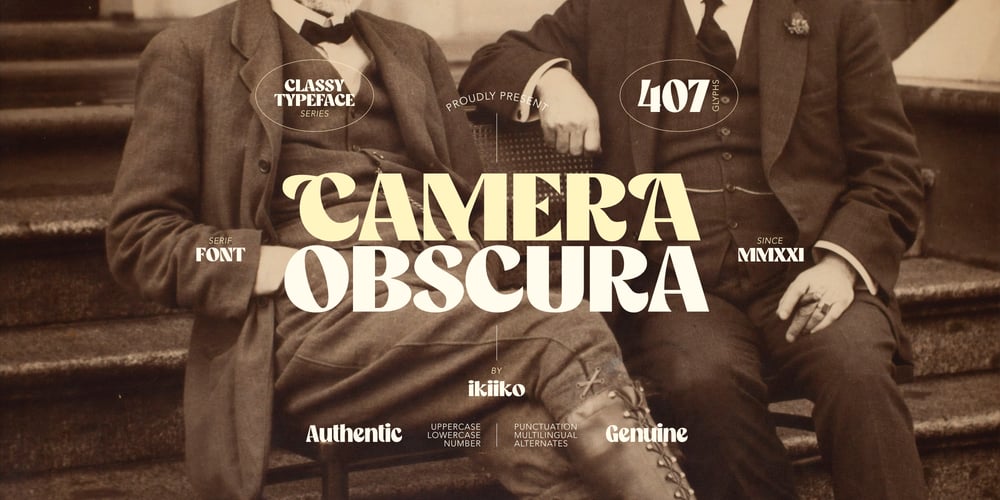
Camera Obscura Font Family was designed by Wahyu Eka Prasetya, Andhika Pradana and published by IKIIKOWRK. Camera Obscura contains 1 styles and family package options. Introducing Camera Obscura – ClassyType, created by ikiiko.Camera Obscura was inspired by typography from a vintage New York City newspaper. In particular, this typeface is designed to give a formal yet old style look Camera Obscura has a serif typeface with bold to light contrast. A style commonly used in magazines and mass media in his era. This typeface is perfect for an formal layout, newspaper, magazine cover, and also good for vintage product, food & beverages, quotes, or simply as a stylish text overlay to any background image.What’s included? Uppercase & Lowercase Number & Punctuation Alternates Multilingual Support Get also a good offer & FREEBIE at our site : www.ikiiko.comEnjoy our font and if you have any questions, you can contact us by email : ikiikowrk@gmail.com